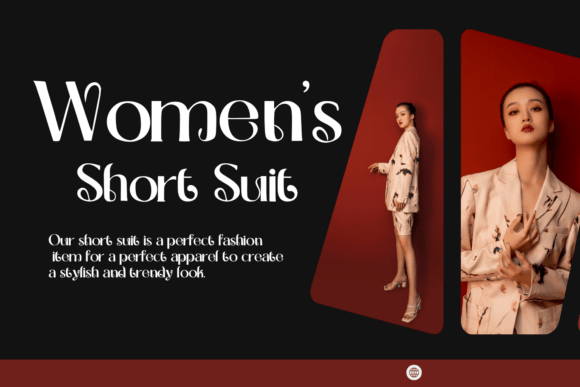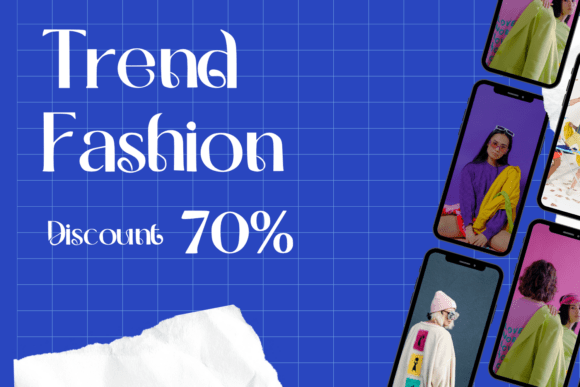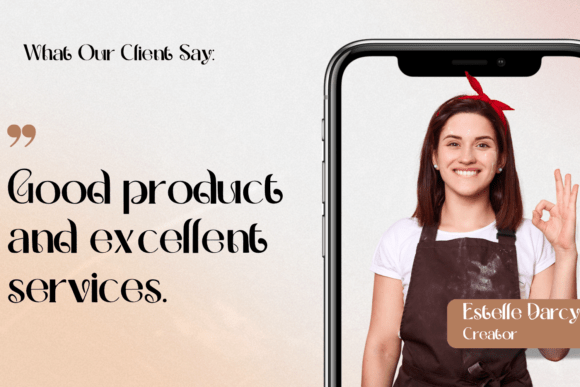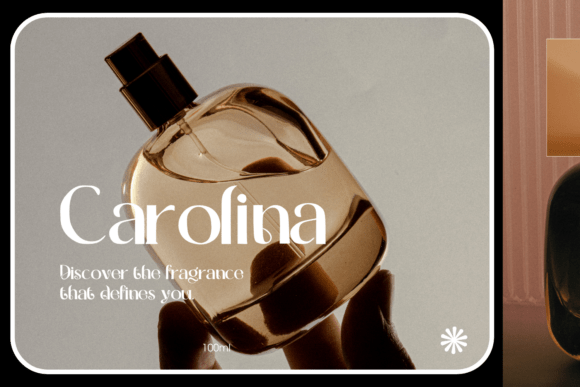
Introduction to Murisa Yokata Font
You’re staring at a blank canvas, a blank page, or a blank screen – the creative void can be intimidating. But, have you ever felt that elusive spark of inspiration when you stumble upon the perfect design resource? For many of us, it’s that moment when all the pieces come together, and our vision begins to take shape. That’s exactly what the Murisa Yokata Font can do for your creative project.
This enchanting modern display serif font is a game-changer for designers seeking to elevate their high-quality designs. With its fluid teardrop terminals and beautifully curling swash dynamics, Murisa Yokata Font is a standout choice for premium designs that demand sophistication and elegance.
From boutique cosmetic logos to luxury perfume packaging, this font is a strategic asset that can fast-forward your brand identity and leave a lasting impression on your audience.
Key Features of Murisa Yokata Font
- Unique, hand-drawn style that adds a personal touch to any creative project.
Honest Review: Murisa Yokata Font
As a designer, I’ve had my fair share of working with various design resources, and I’m always on the lookout for high-quality fonts that can elevate my creative projects. Recently, I stumbled upon the Murisa Yokata Font, and I’m excited to share my thoughts on it.
- ✨ Unique and elegant design that adds a touch of sophistication to any project
- ⚠️ Limited character set, which may not be suitable for projects requiring a wide range of characters
Overall, I’m impressed with the Murisa Yokata Font’s quality and design. While it may not be perfect for every project, it’s an excellent choice for designers looking for a high-quality, elegant font for their creative projects.
- Use it for headings and titles to add a touch of elegance.
Murisa Yokata Font is suitable for various projects, including:
- Branding
- Website design